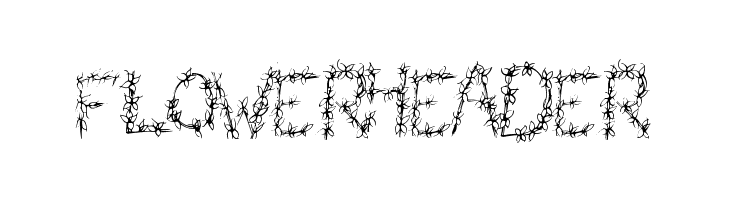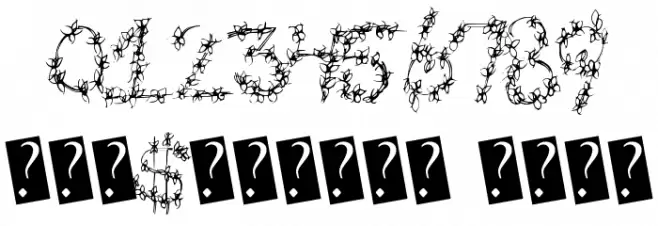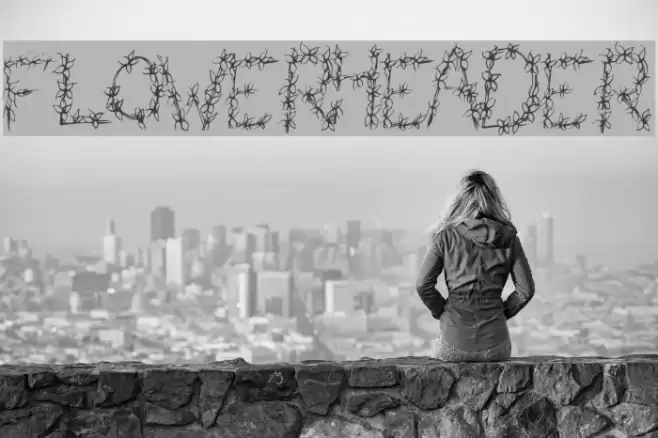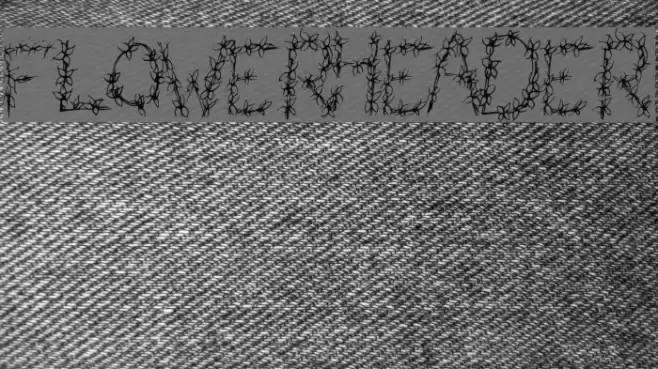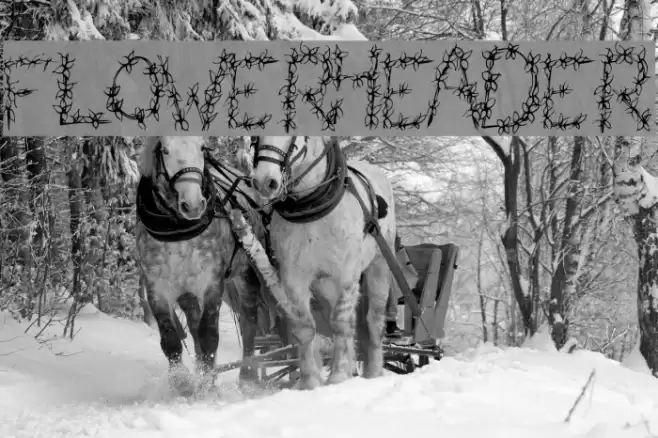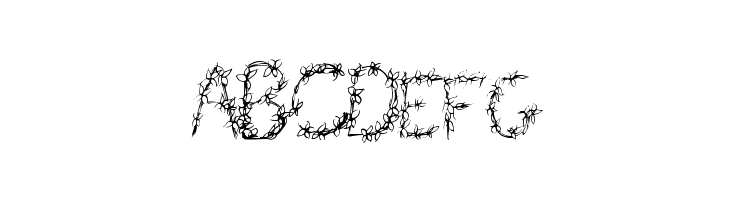
FlowerHeader Font
FlowerHeader Description
This font is a decorative and intricate design that incorporates floral elements into each character. The letters are formed by intertwining vines and flowers, creating a whimsical and organic appearance. The design is highly detailed, with each character resembling a piece of art. The floral theme is consistent across uppercase, lowercase, numbers, and special characters, making it a cohesive and visually appealing choice for projects that require a natural or garden-like aesthetic. The font's unique style makes it stand out, perfect for creative and artistic applications.
| Proposed Projects | Ideal for wedding invitations, garden-themed events, eco-friendly branding, and artistic posters. |